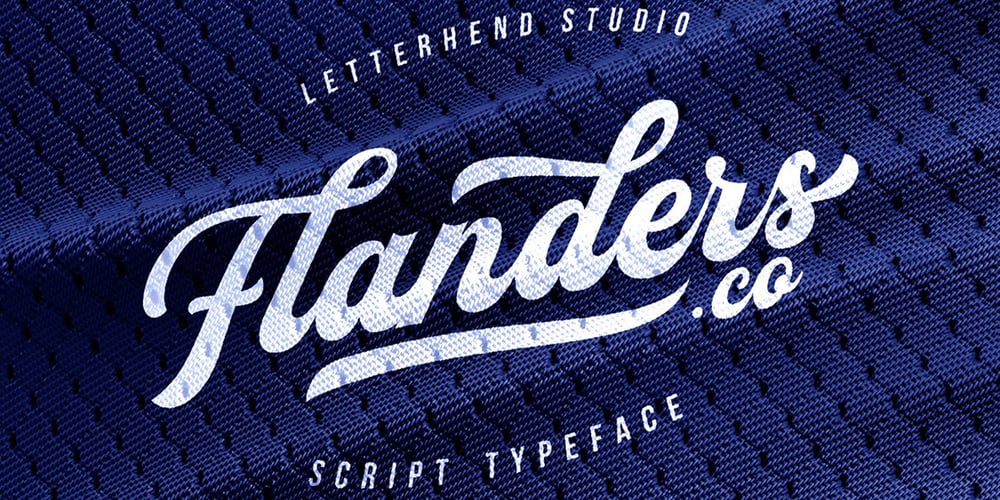
Flanders Script Font Family was designed by Hendry Juanda and published by Letterhend. Flanders Script contains 2 styles and family package options. Flanders is a bold and modern script that will fulfil your design needs for sporty themes, logotype, quotes, watermarks and more. This has many OpenType features like ligatures, stylistic alternates, contextual alternates, swashes, as well as multi-language support. Flanders Shadow is a complementary font that allows you to create extrude/shadow effect in a snap without needing any graphic software tool! We hope you enjoy the font, please feel free to comment if you have any thoughts or feedback. Or simply send me a PM or email me at letterhend@gmail.com or visit letterhend.com for freebies. Thanks for purchasing and have fun!